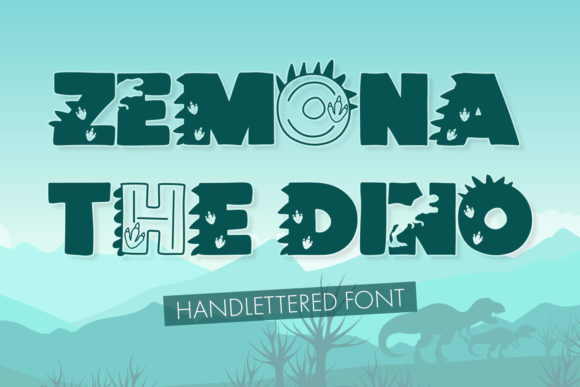
Embark on a whimsical adventure with Zemona the Dino Font, a delightful decorative font that captivates hearts with its endearing charm. Unleash your creativity and transform your designs into enchanting tales with this playful and authentic font. Zemona the Dino is not just a font; it's a gateway to a world of imagination, where letters dance like joyful dinosaurs, bringing life to your projects.
Picture a world where your words dance and play, where every letter is a character in a captivating story. With Zemona the Dino Font, your designs will leap off the page, filled with personality and whimsy. Let your imagination run wild as you create eye-catching logos, playful invitations, vibrant social media posts, and captivating marketing materials.
Feel the joy of creating with a font that embodies happiness and adventure. Zemona the Dino Font is the perfect companion for children's activities, school projects, and any endeavor that calls for a touch of magic. Its thick, sturdy letters are easy to read and understand, making it an excellent choice for educational materials and fun, interactive designs.
With Zemona the Dino Font, you'll unlock a world of possibilities, where your designs take on a life of their own. Let your creativity soar as you craft enchanting stories, design captivating projects, and leave a lasting impression on your audience. Embrace the playful spirit of Zemona the Dino Font and embark on a journey of artistic discovery today!